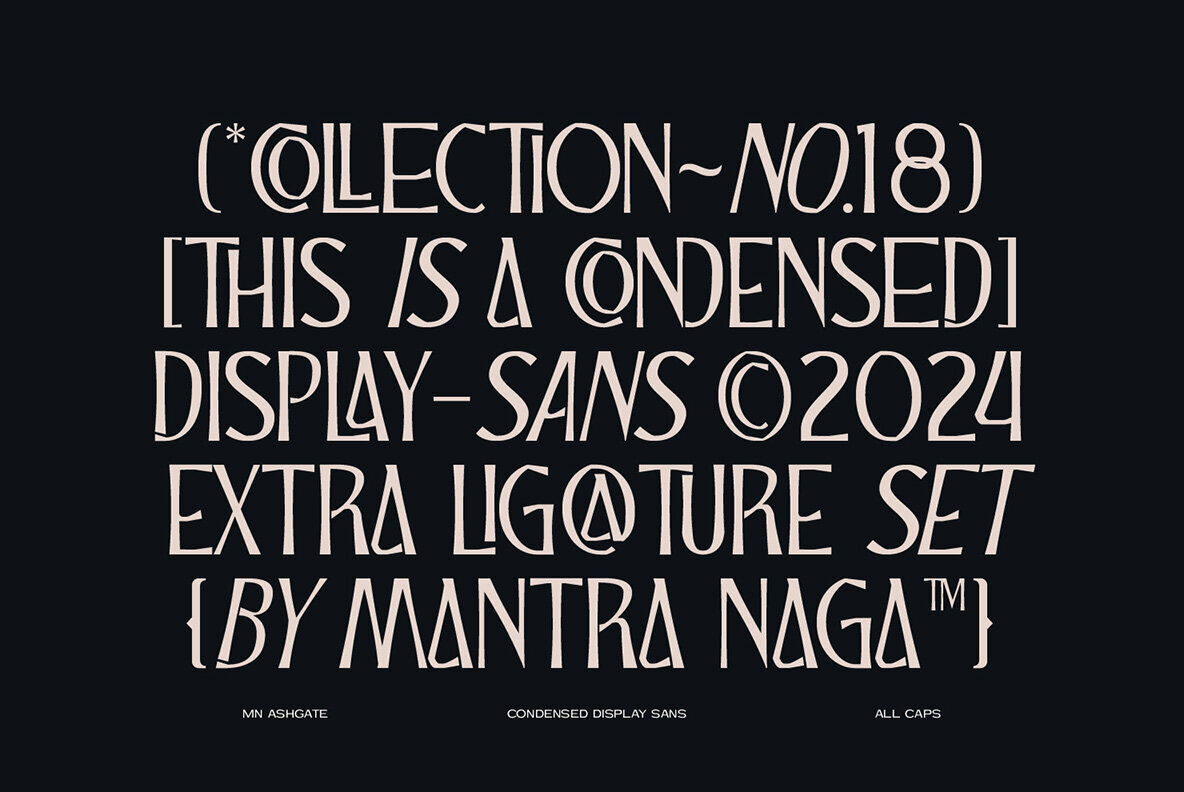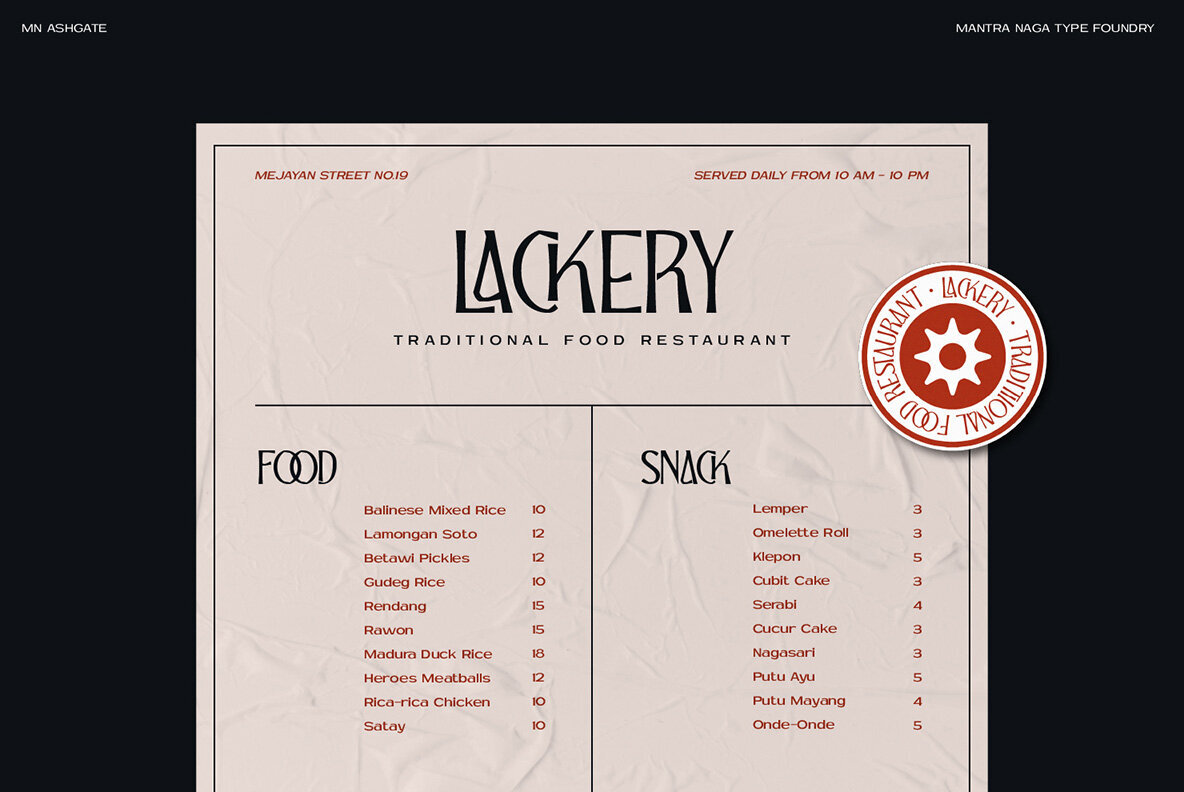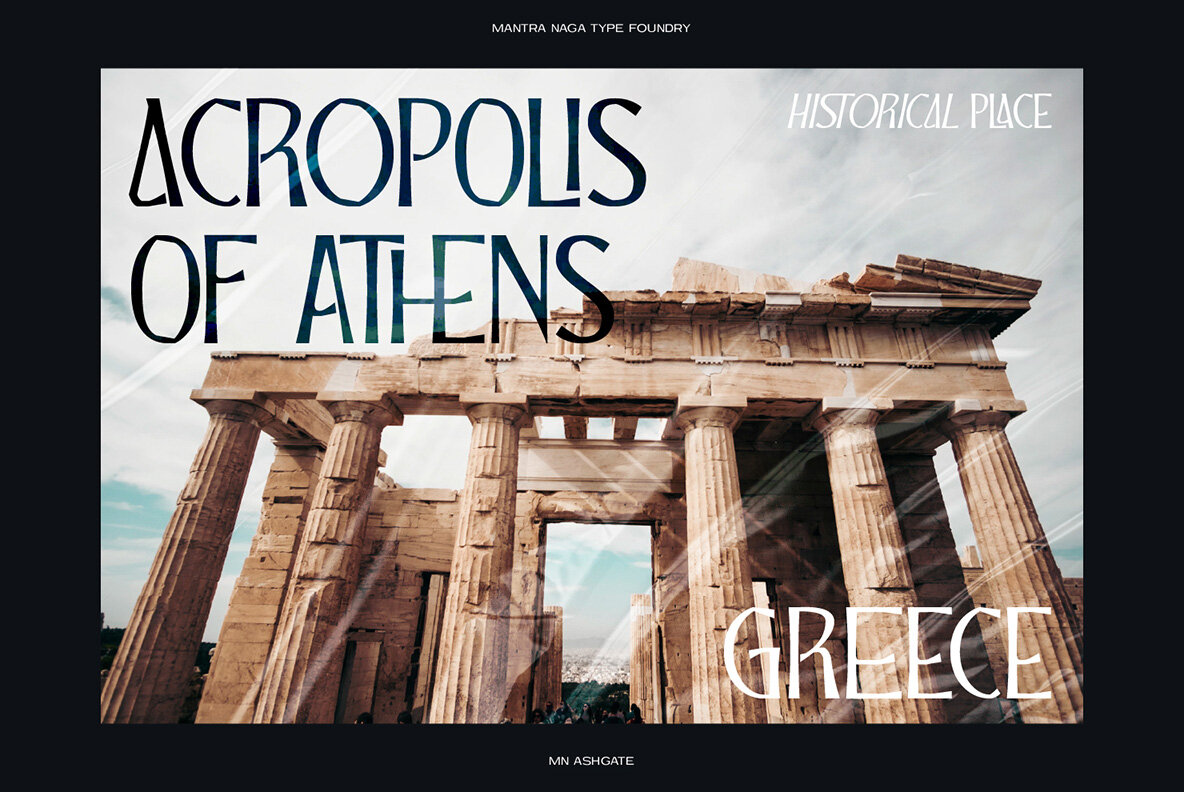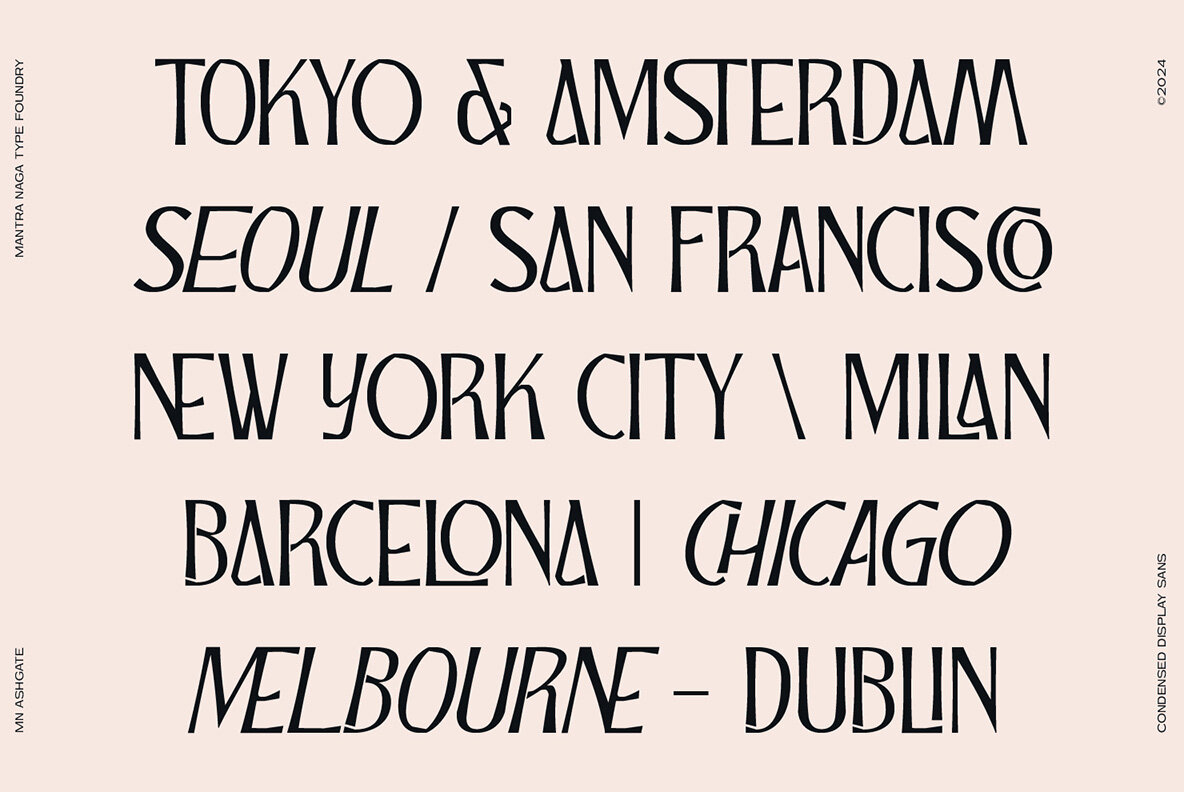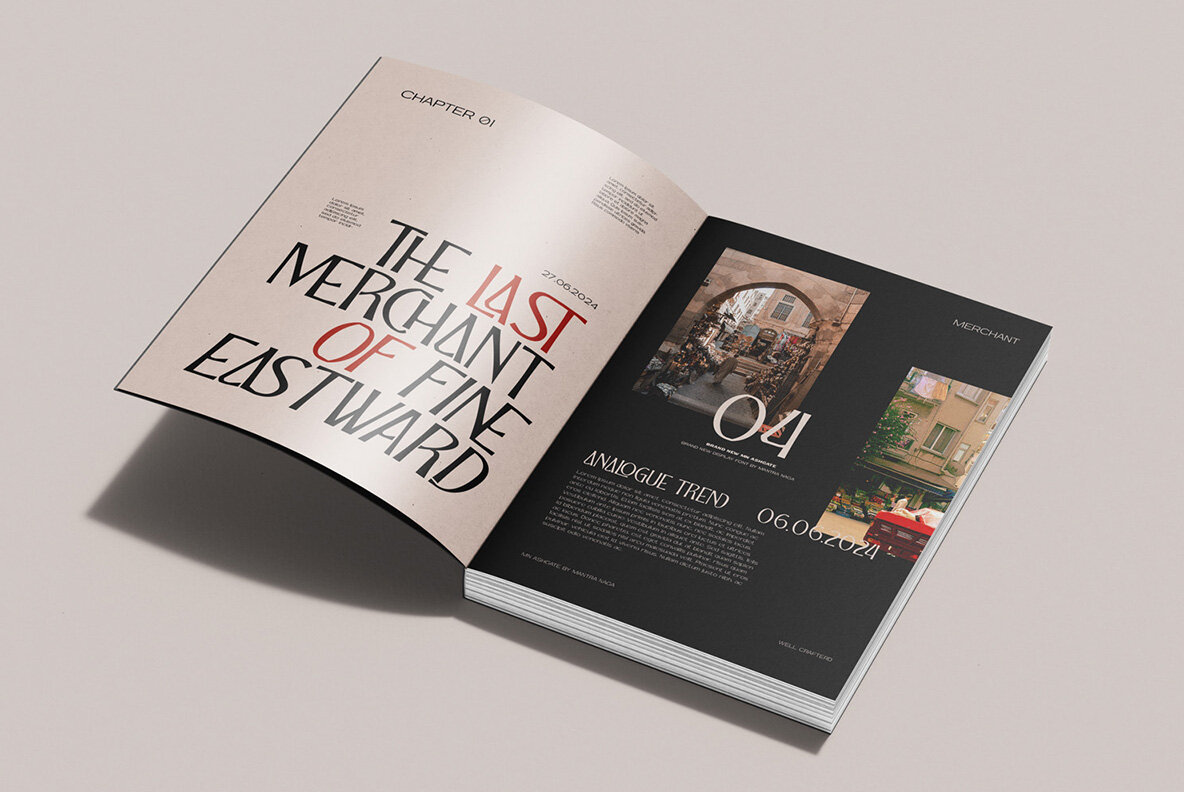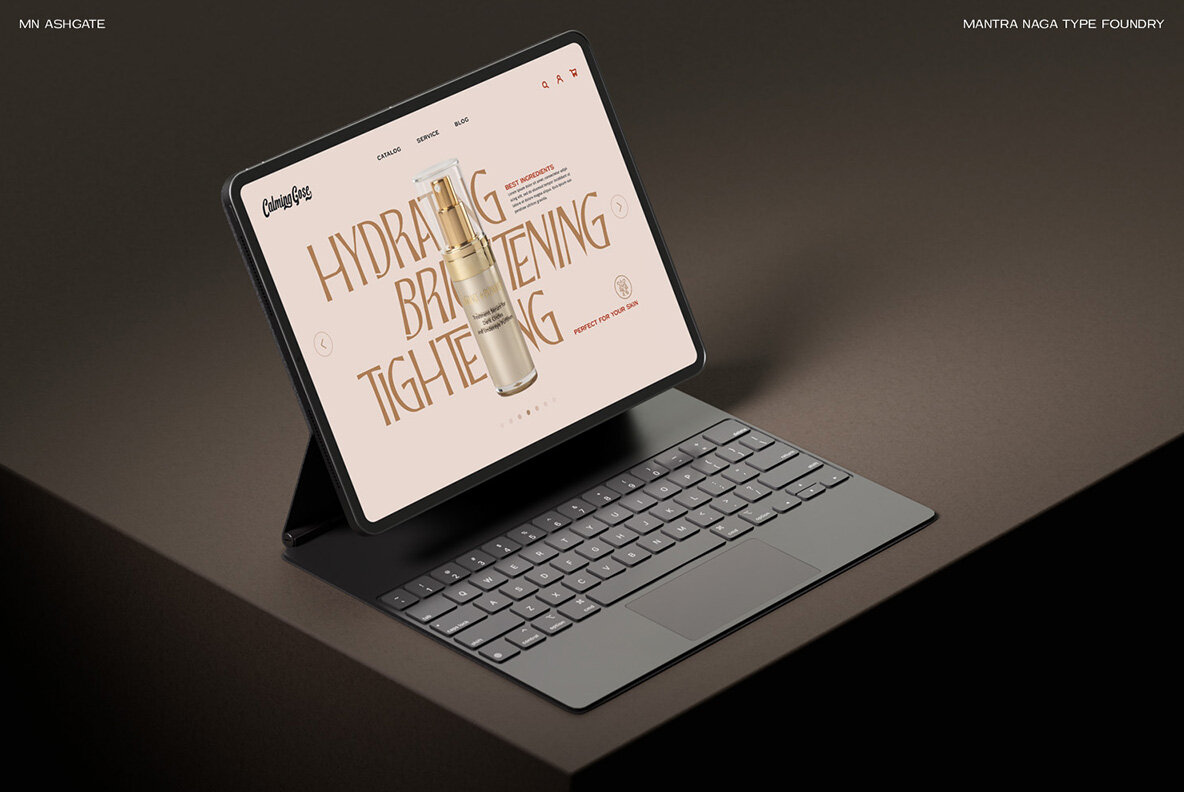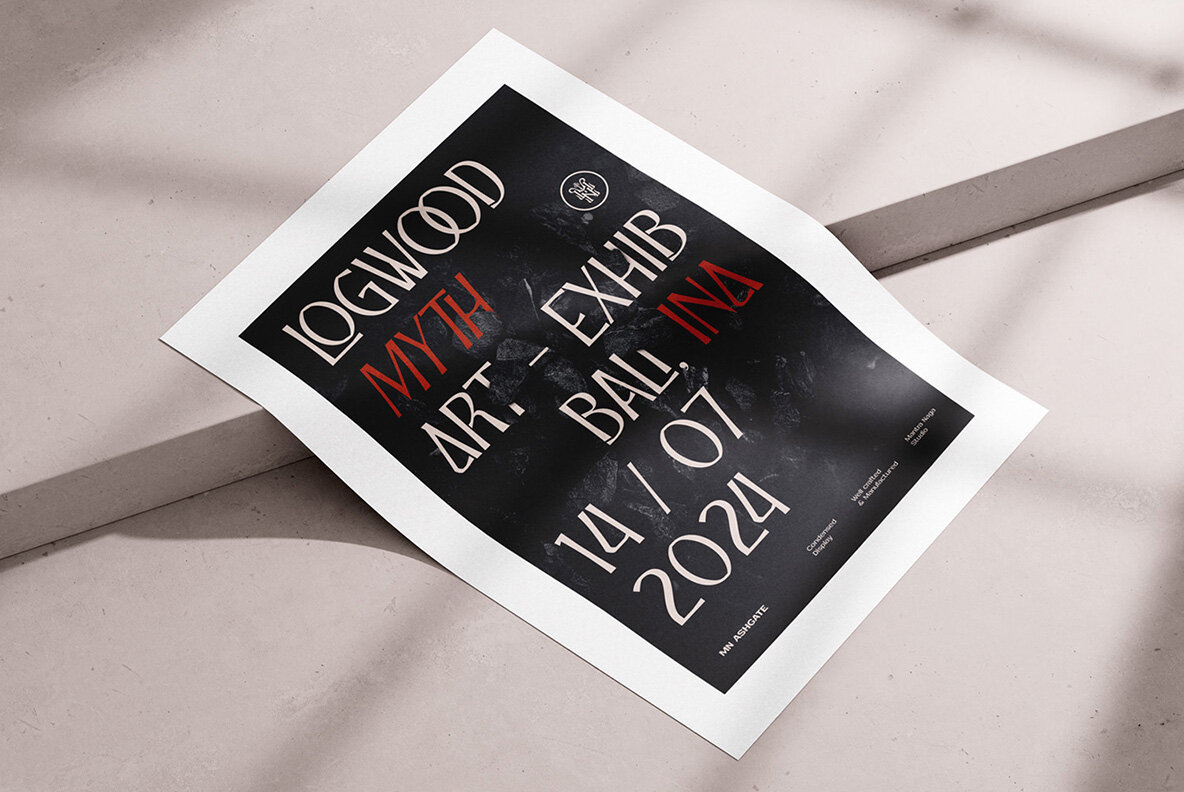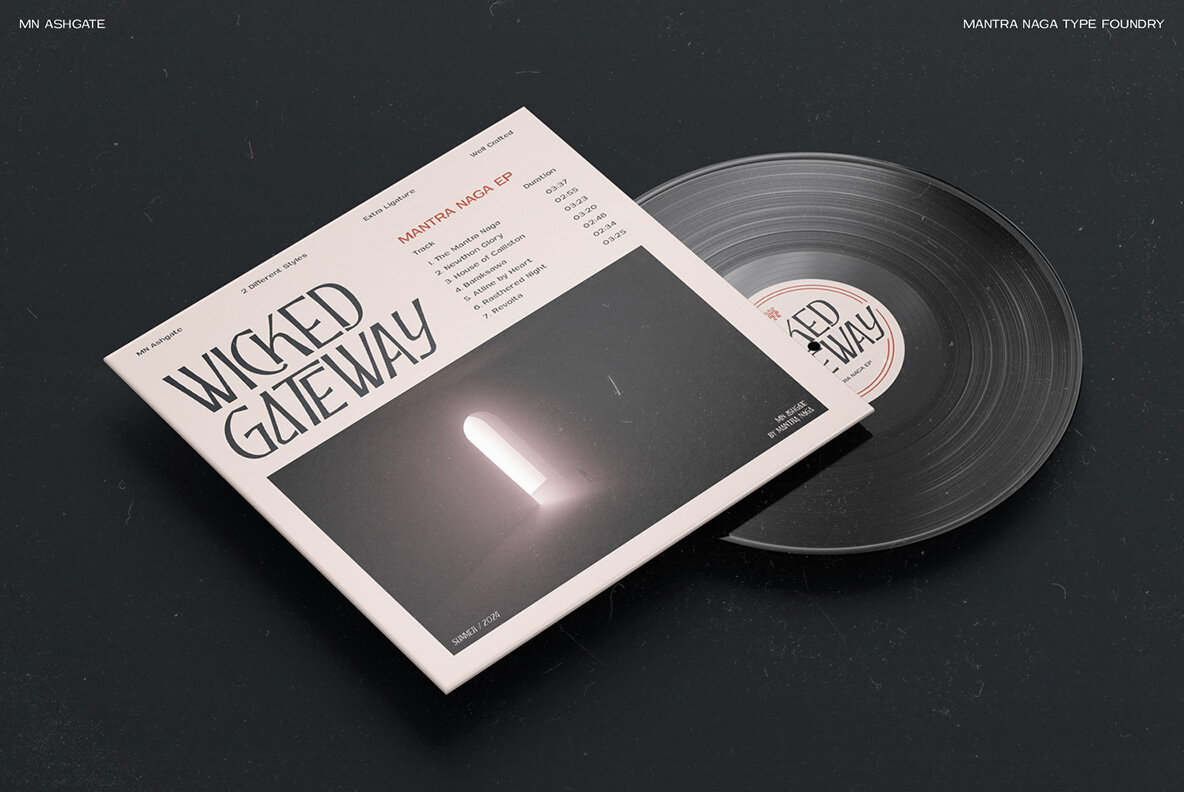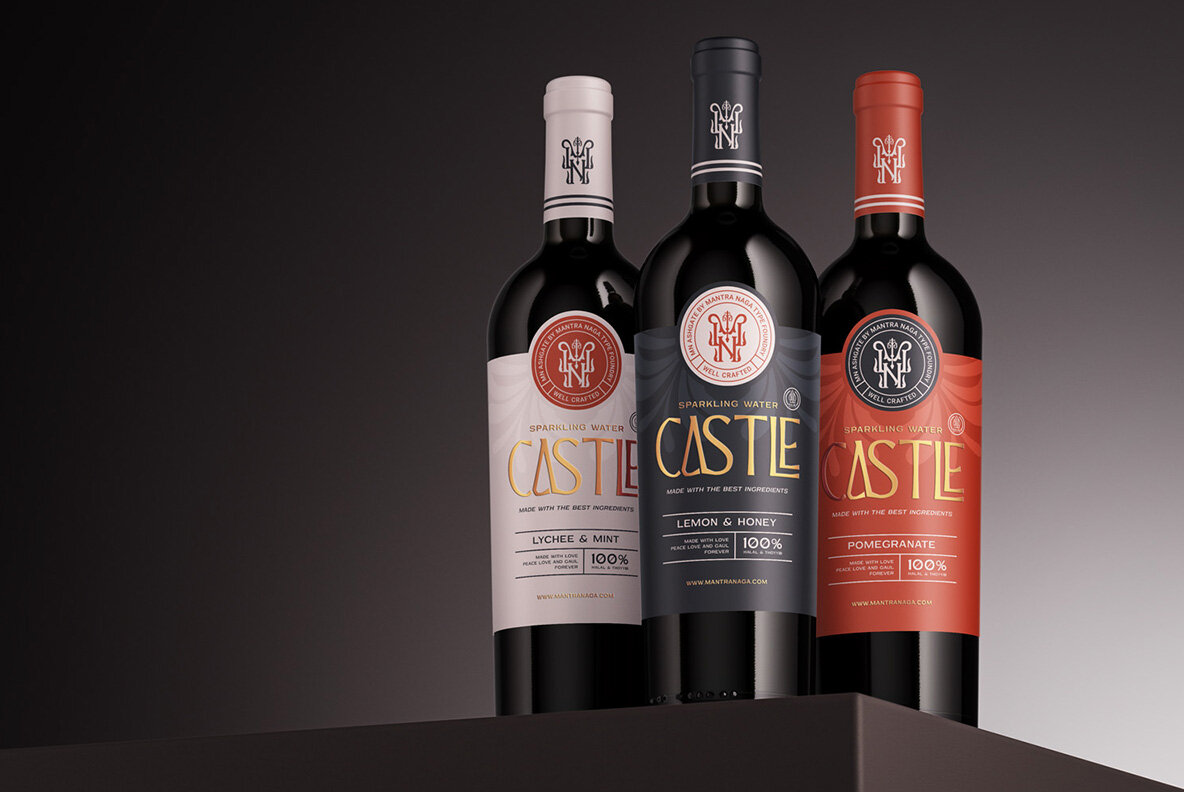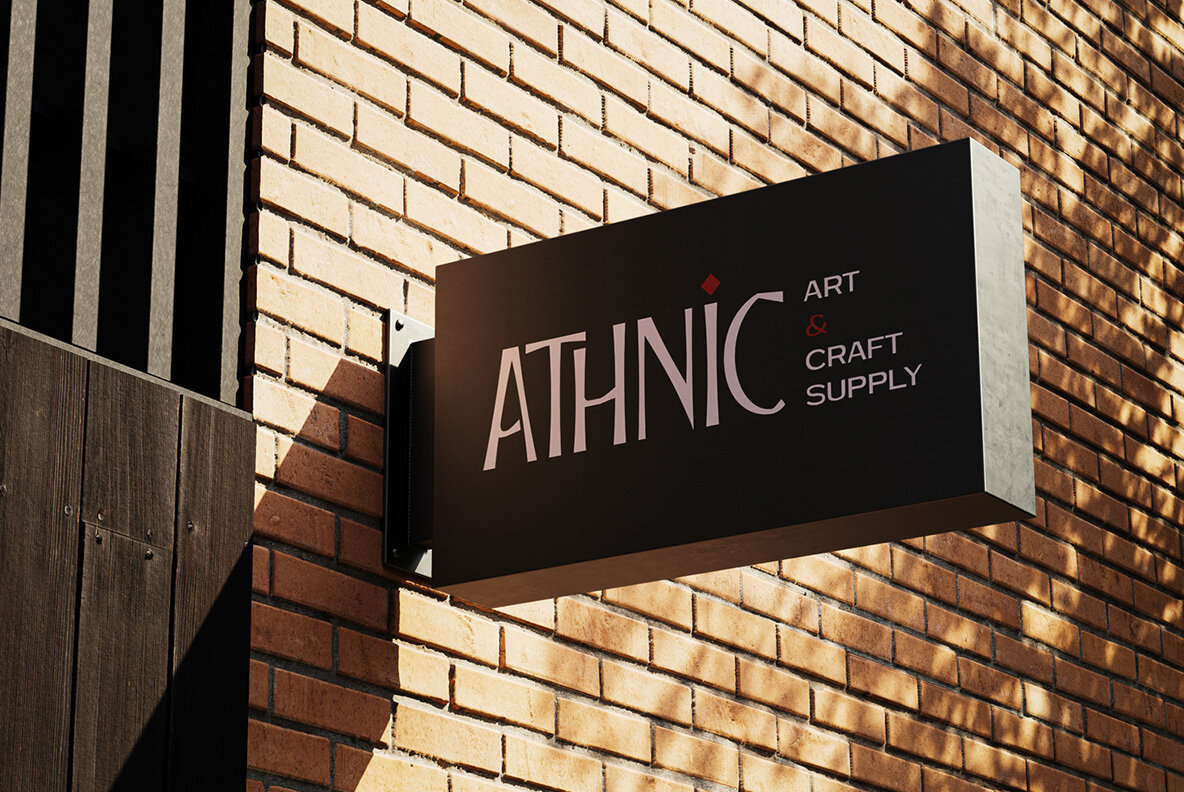
MN Ashgate Font
MN Ashgate is a charming thin sans serif display font, designed with an elegant approach to the classical Greek style. With a variety of ligatures available, this font not only blends the classic feel but also adds a subtle contemporary feel. MN Ashgate is suitable for projects that require a special touch and a classy feel, giving a very different impression but still easy to read and aesthetic. Available with 2 styles regular and italic.